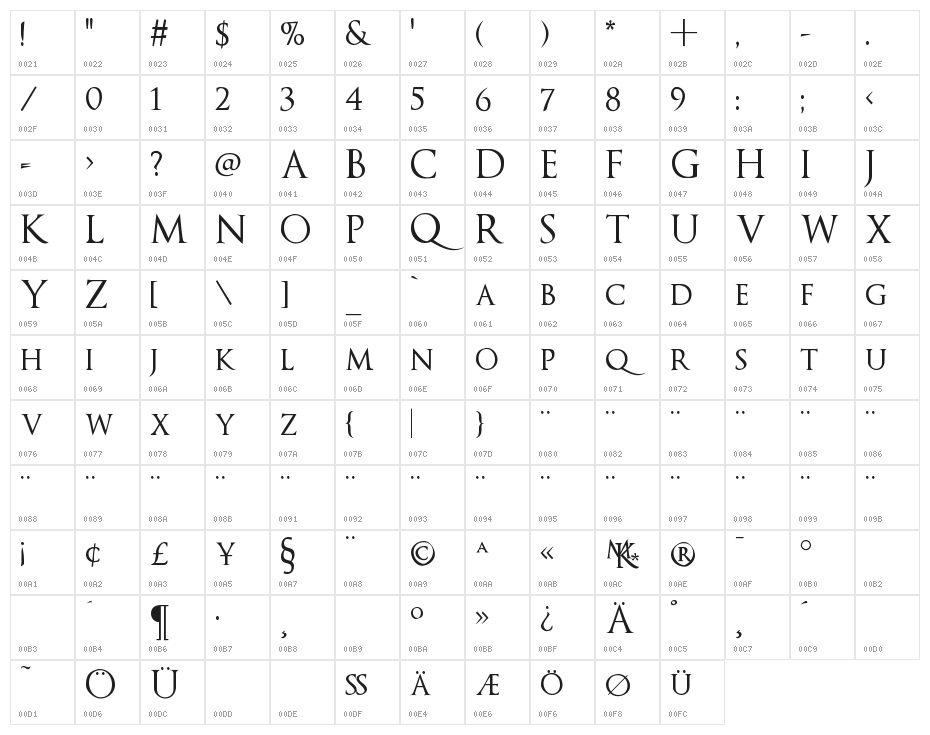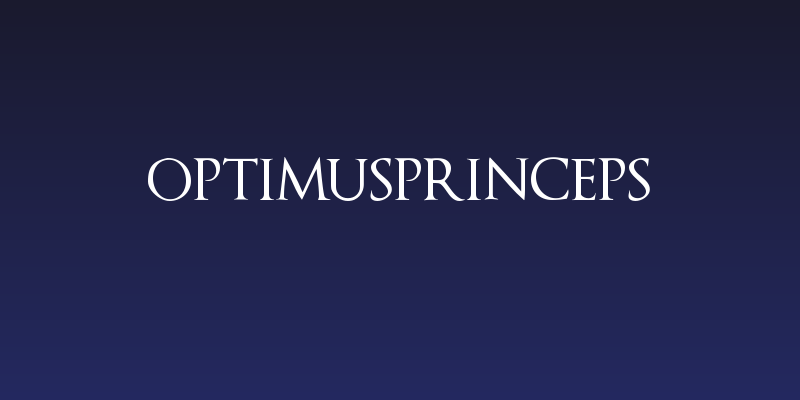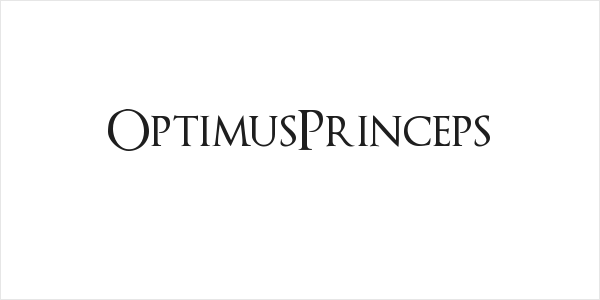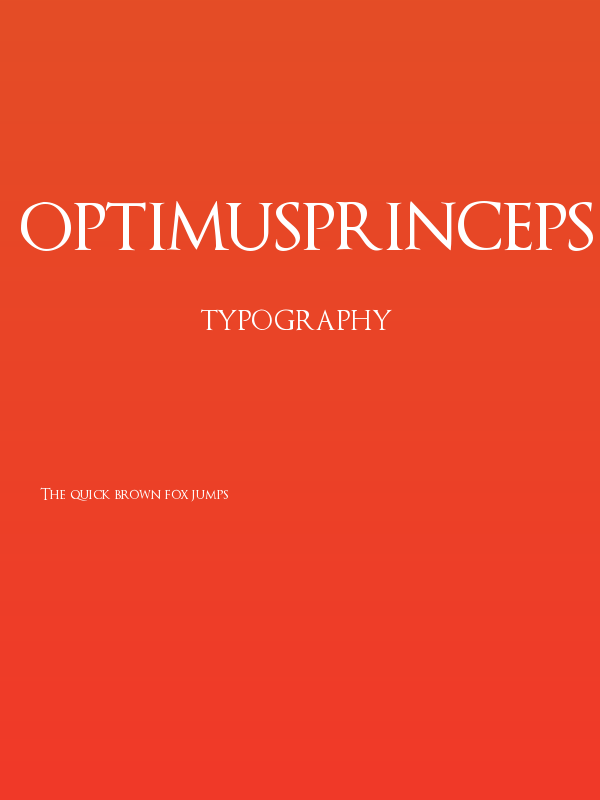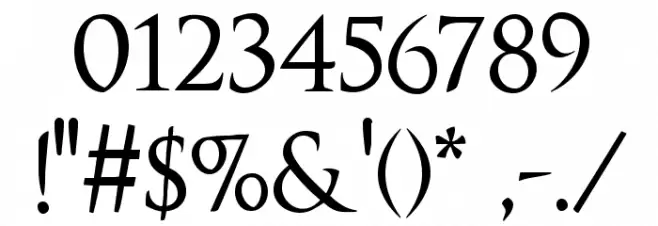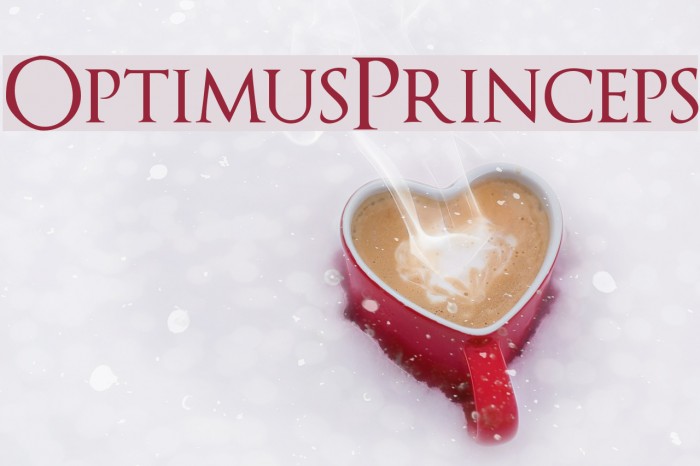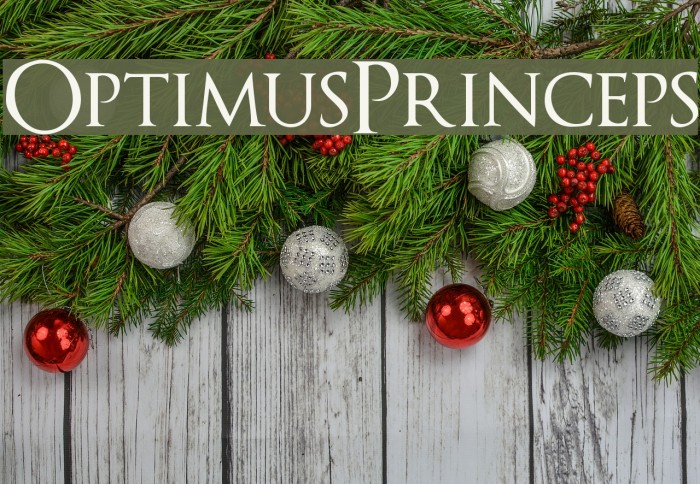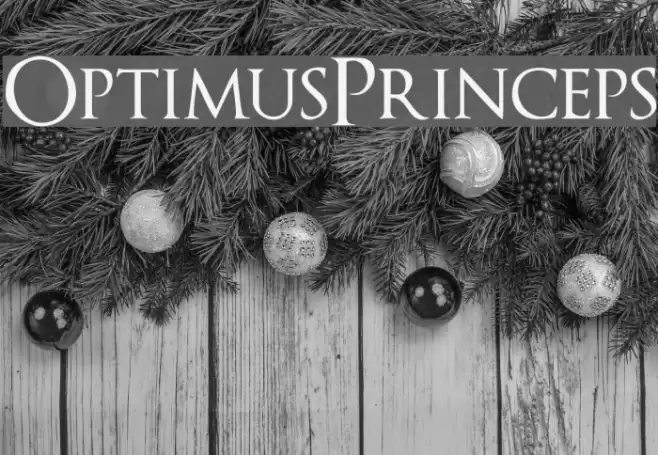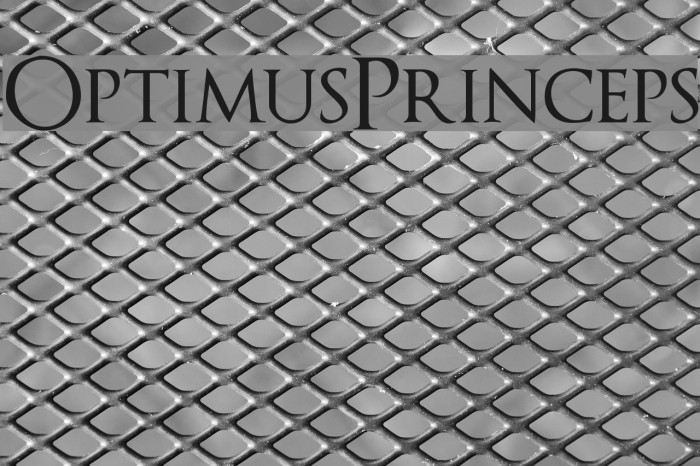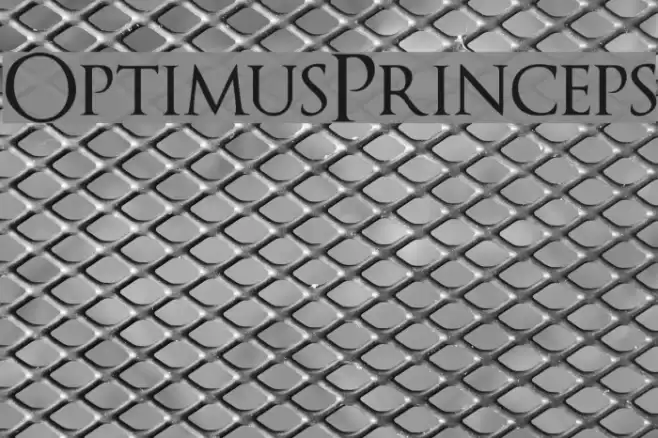
OptimusPrinceps Font
OptimusPrinceps Description
This font features a classic serif style with elegant, sharp serifs and a refined, traditional appearance. The uppercase letters are bold and commanding, with a slight contrast in stroke thickness that adds to their stately presence. The lowercase letters maintain a consistent style, offering a harmonious blend of curves and straight lines. Numbers are designed with clarity and precision, making them easily readable. Special characters are crafted with the same attention to detail, ensuring a cohesive look across all glyphs. The overall design is reminiscent of ancient Roman inscriptions, lending a sense of history and gravitas to any text.
| Overall Style | Classic |
| Use Case | Headlines, Body text, Logos |
| Proposed Projects | Ideal for projects requiring a historical or formal touch, such as book covers, certificates, or branding for luxury products. |